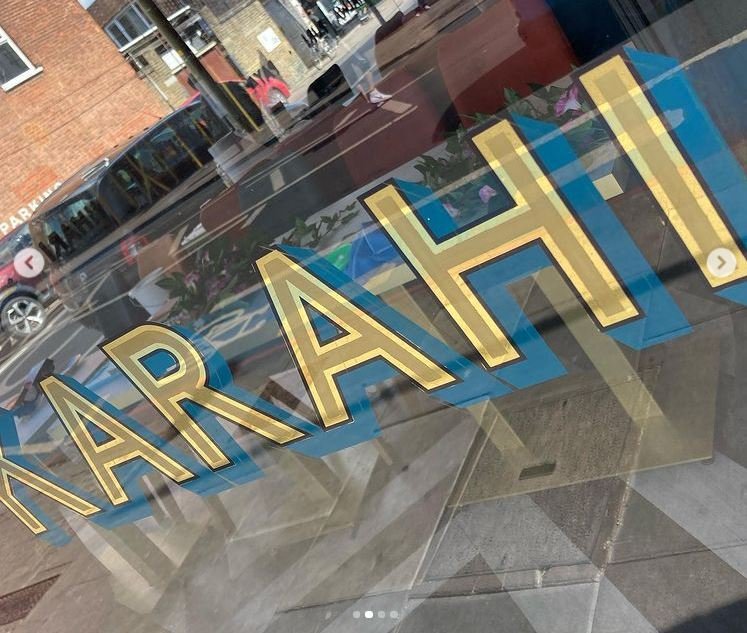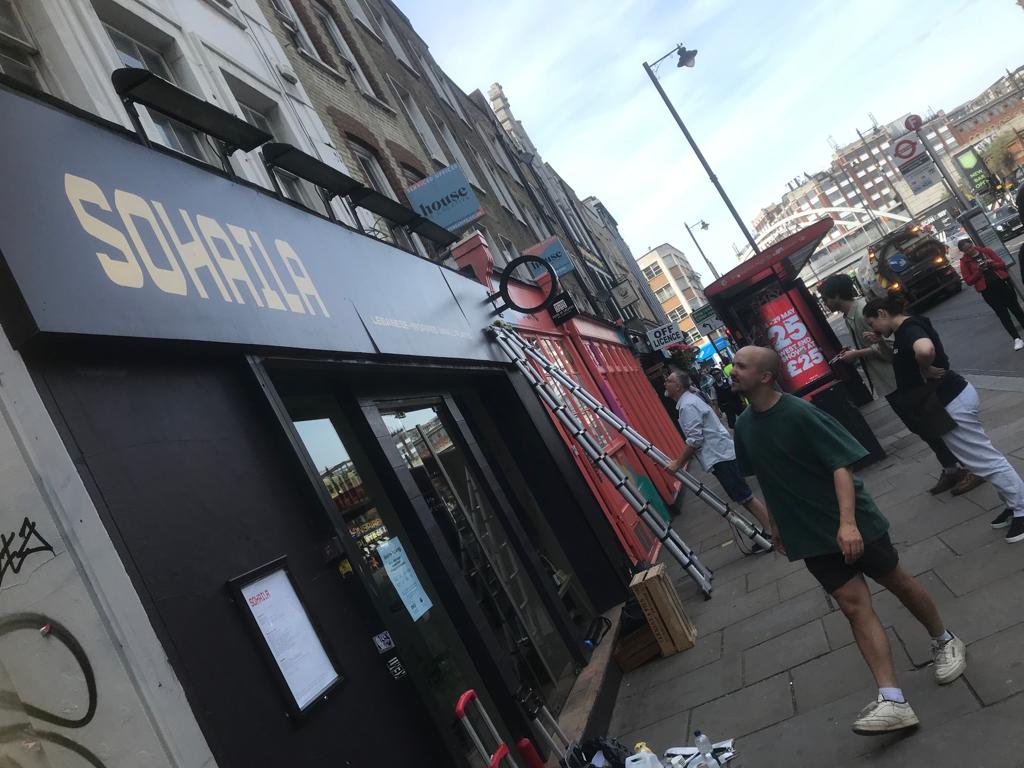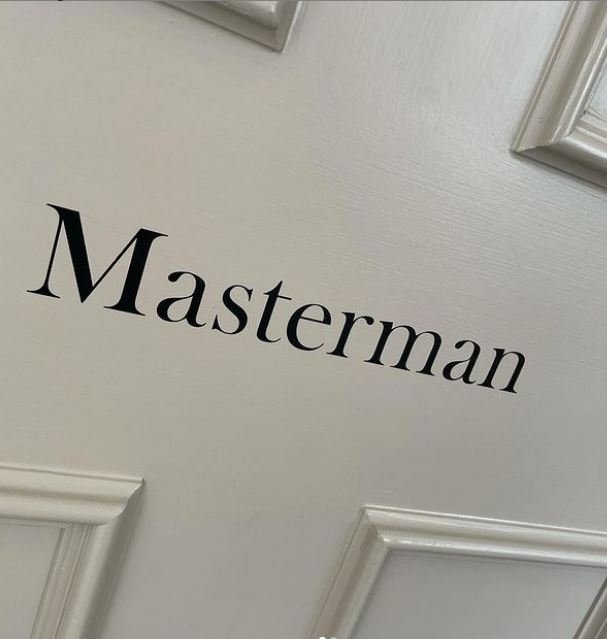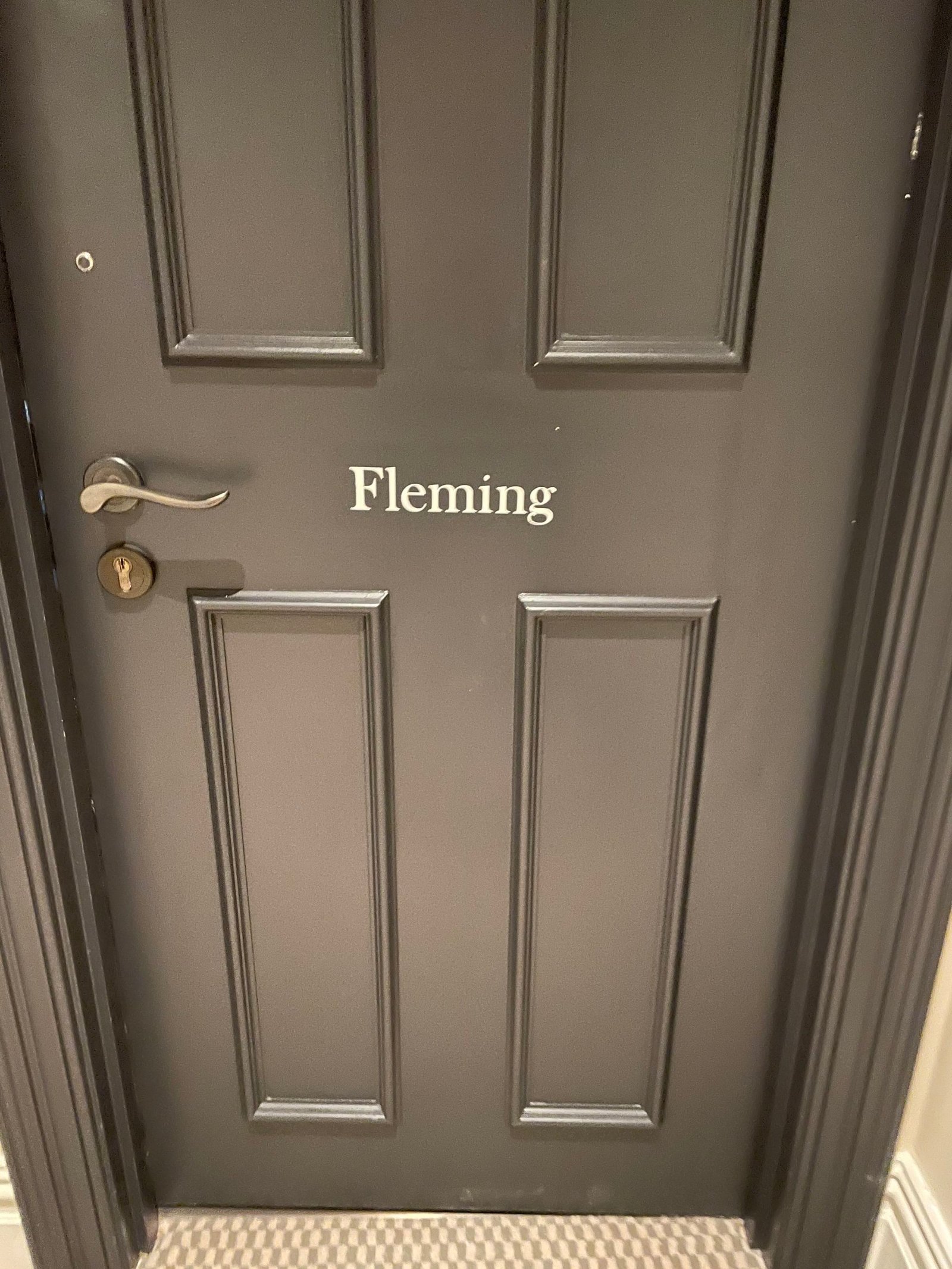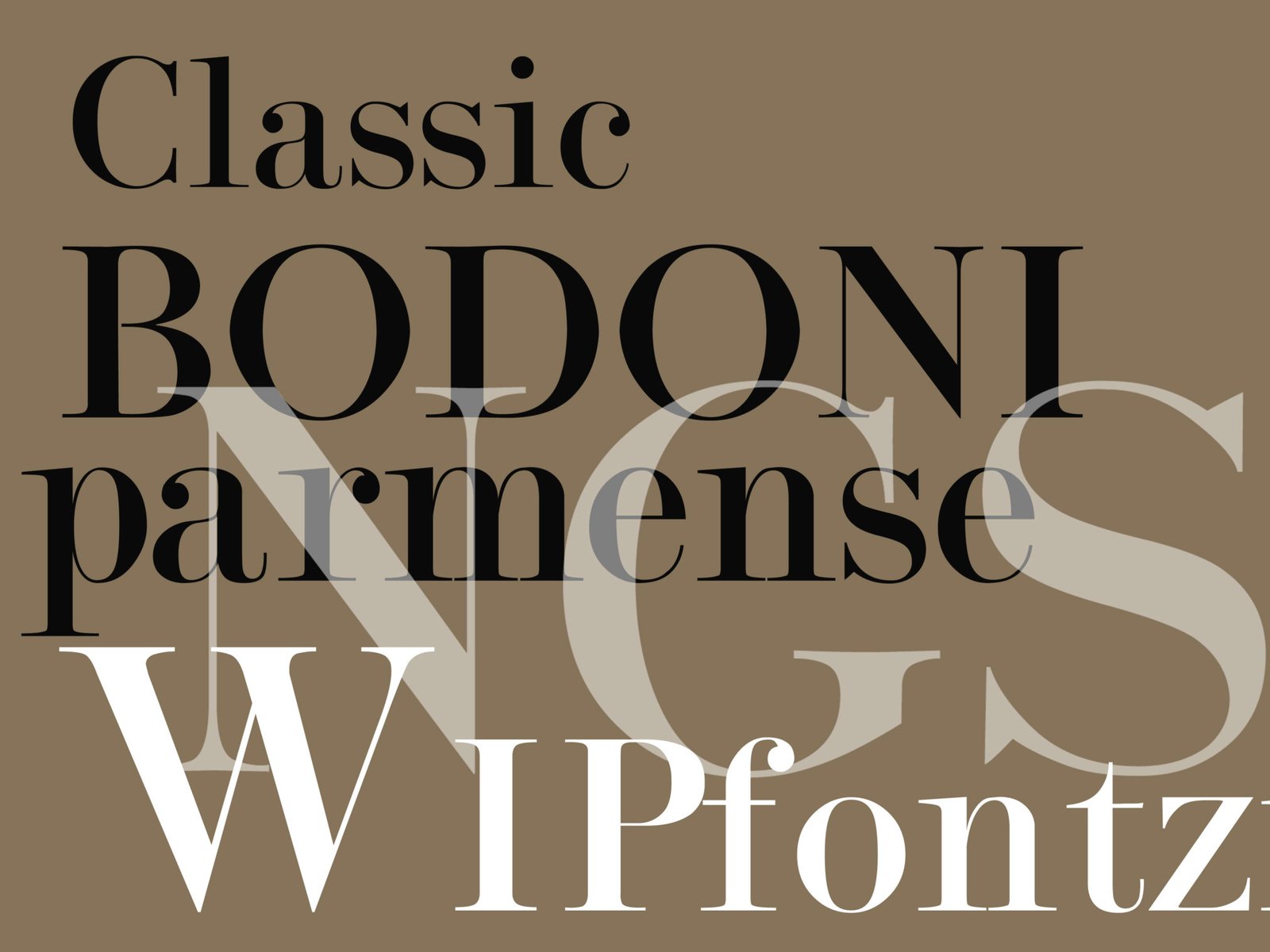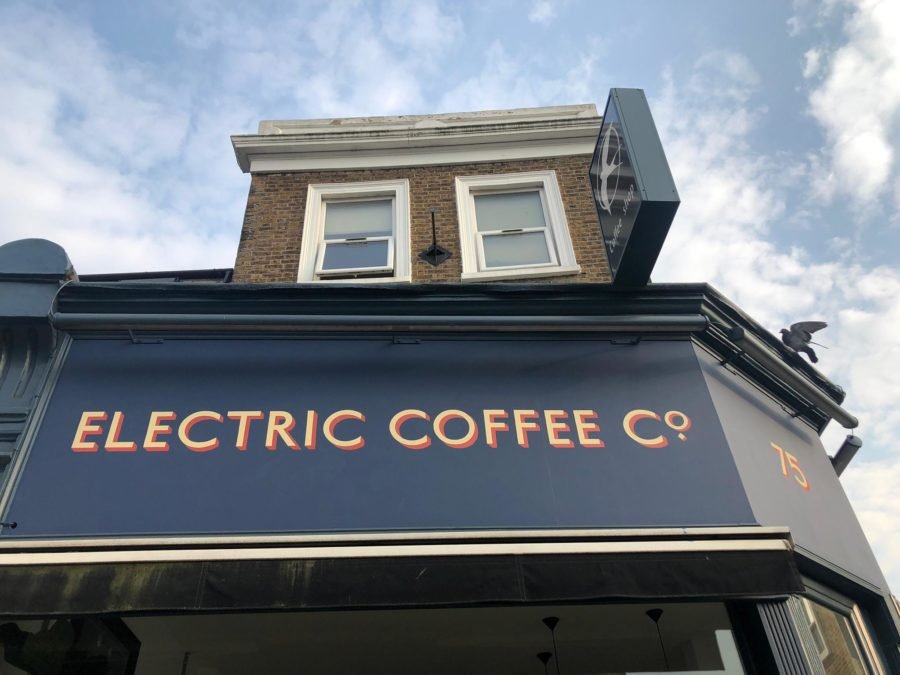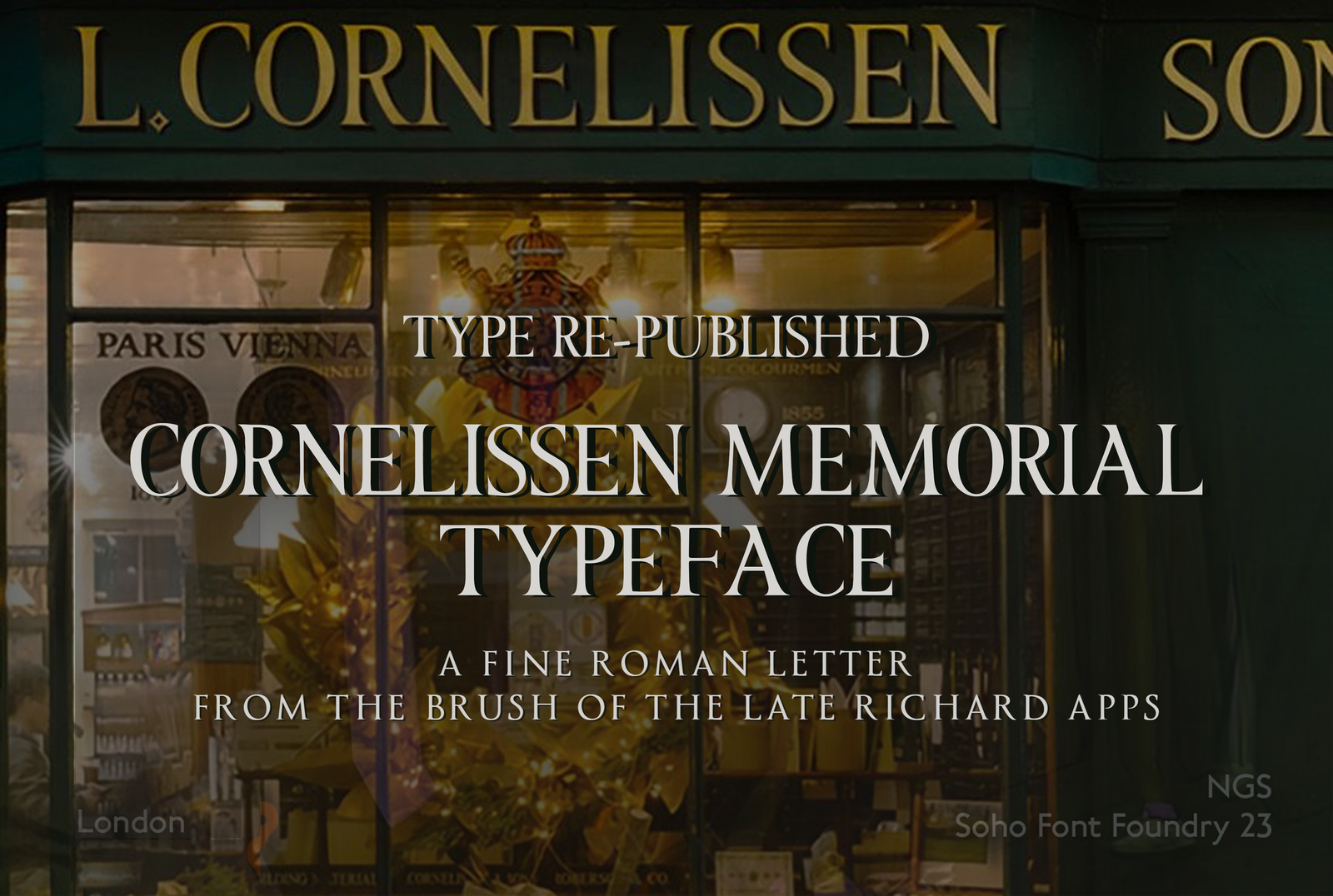
Plucked from the world of London Lettering: blowing the dust off Caslon to the New Hallmark NGS Fonts.
As part of our heritage type foundry NGS are developing a wide classic range of bespoke Contemporary Urban type, Classic Romans, and New Puritan Humanist Fonts.
These include all the meticulous NGS renderings you would expect. Stand alone and Truecut describe well our original NGS restored Edward Johnston collection, Baskerville, classic Soho signwriter block letters: Soho Bold, Revival Bodoni Parmese, Truecut Gill Sans and a new incredible set of Trajan letters.
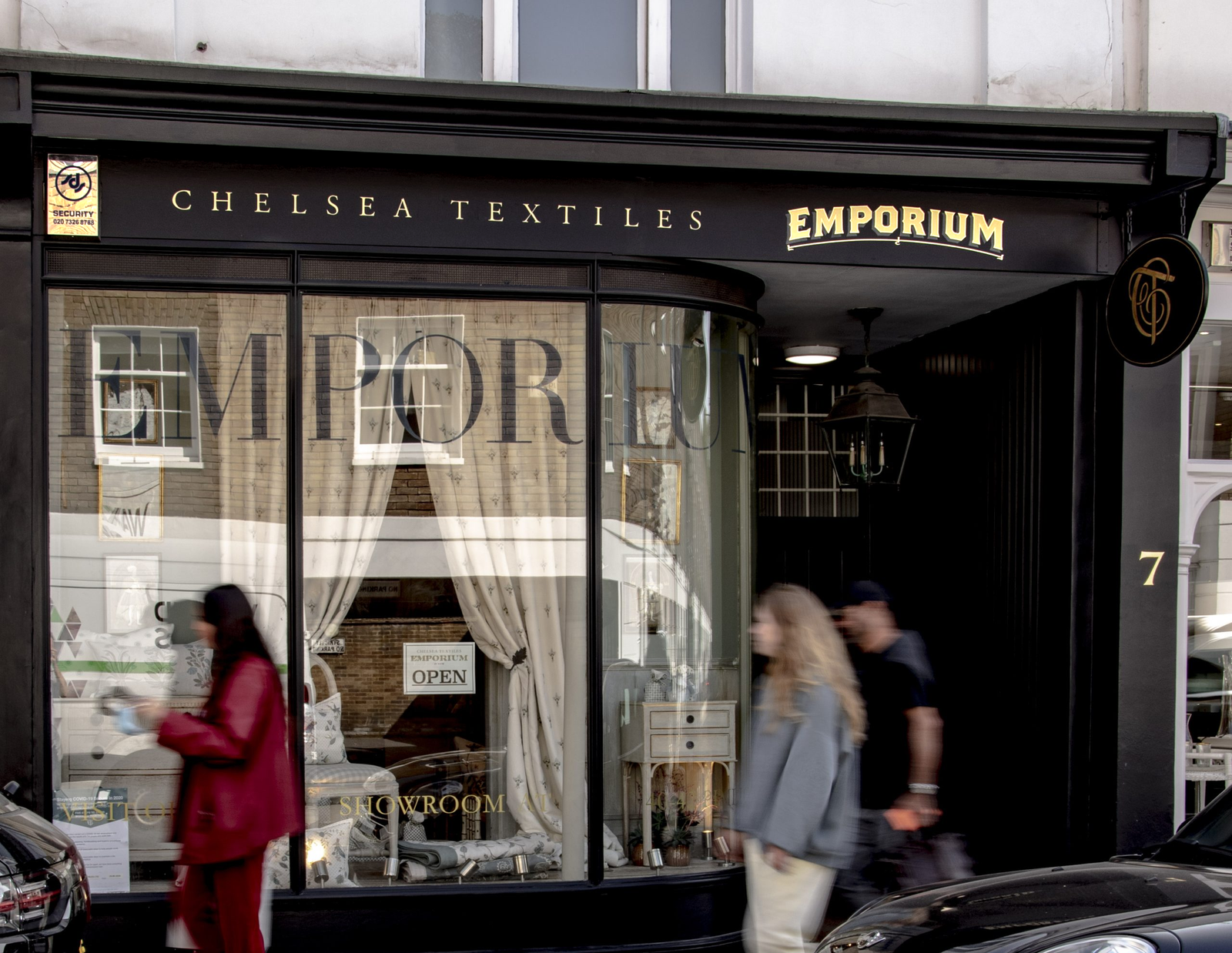
NGS BRANDON, for ‘EMPORIUM’ Walton Street.
NGS NEW BOLD FONTS
NGS BASKERVILLE TRUECUT HERITAGE
Wayfinding signage in NGS Baskerville at The City of London Club hotel suite
NGS BODONI PARMENSE
Modern Twist sign writing, Bodoni House Numbers
NGS Johnston Highbury font The original hand painted Johnston in St Pauls Rd Highbury
NGS JOHNSTON HIGHBURY, EBURY ST. BAKER ST. EARL’S CT.
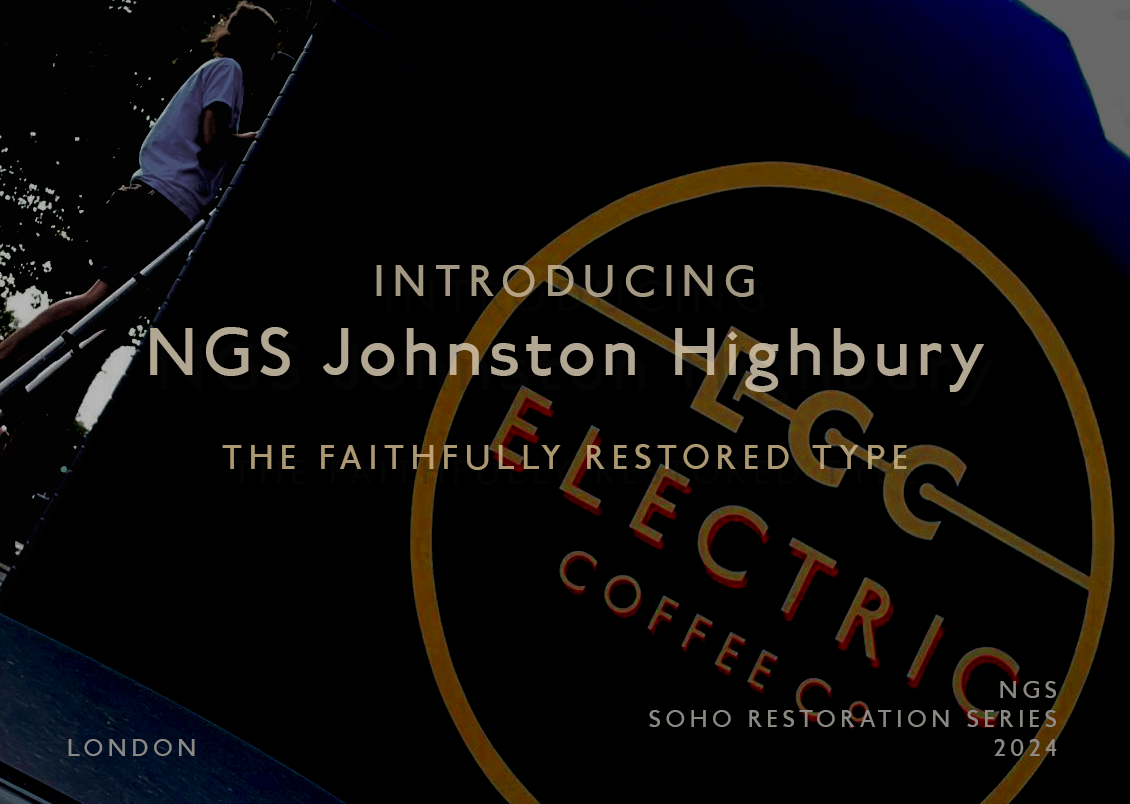
The truecut NGS Johnston Highbury font up and running in 2021
NGS TRAJAN FAMILY
NGS TRAJAN TRUECUT, CATICH, STONE-CUT
Our Classic Trajan Roman really aims to recreate the original hand painted contours of the original piece from Rome.
Strollin’ around town… NGS Molto Bold
NGS Molto bold font inspired by Italian foundry and London Transport poster designs
NGS Paribas Bold
NGS Paribas based on the san serif block lettering found around Berwick and Wardour St